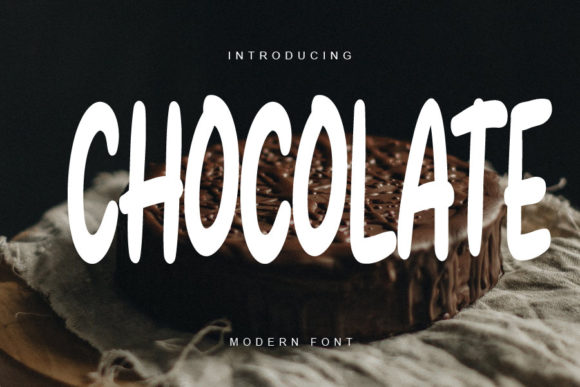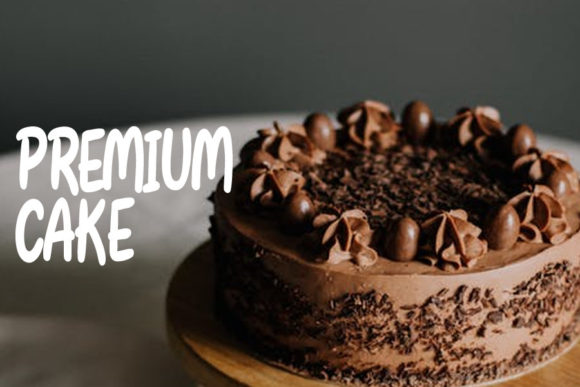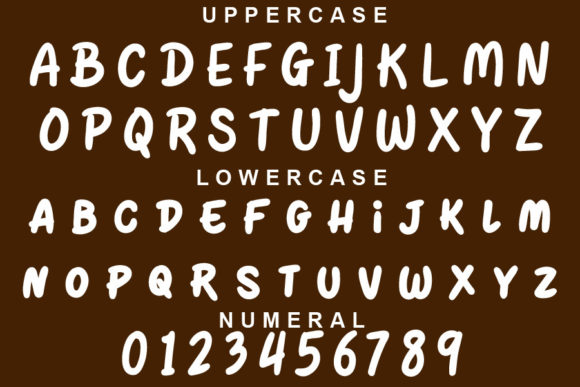
About Chocolate Font
Chocolate is a natural and neat handwritten font. No matter the topic, this font will be an incredible asset to your fonts’ library, as it has the potential to elevate any creation.